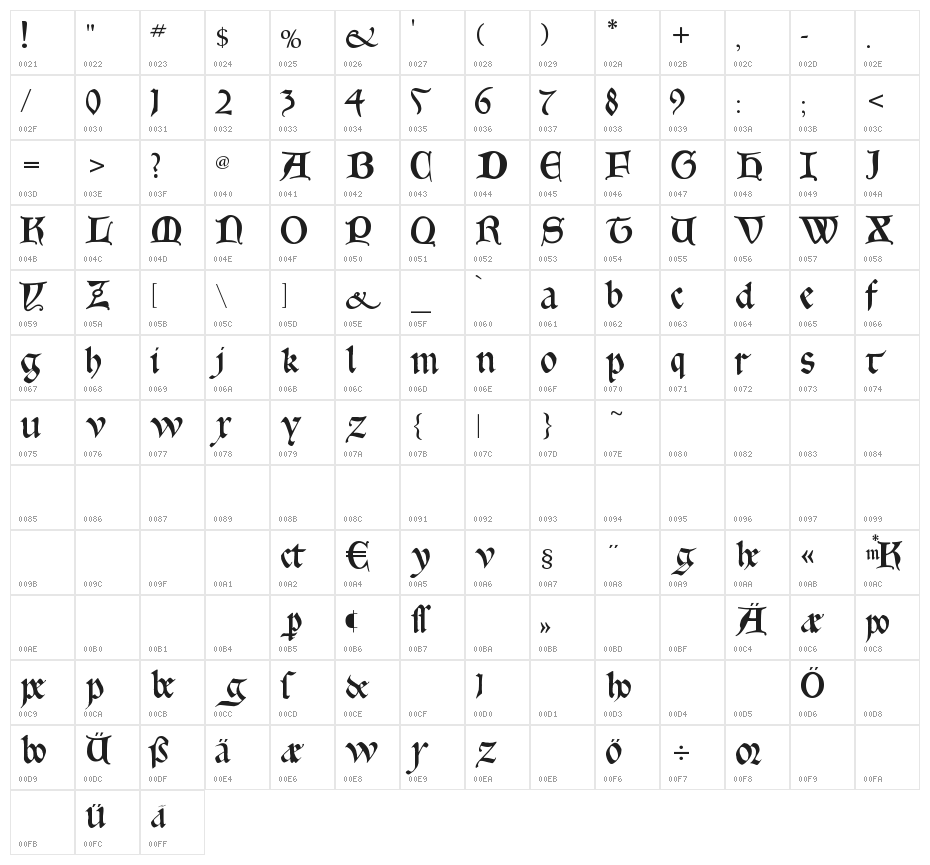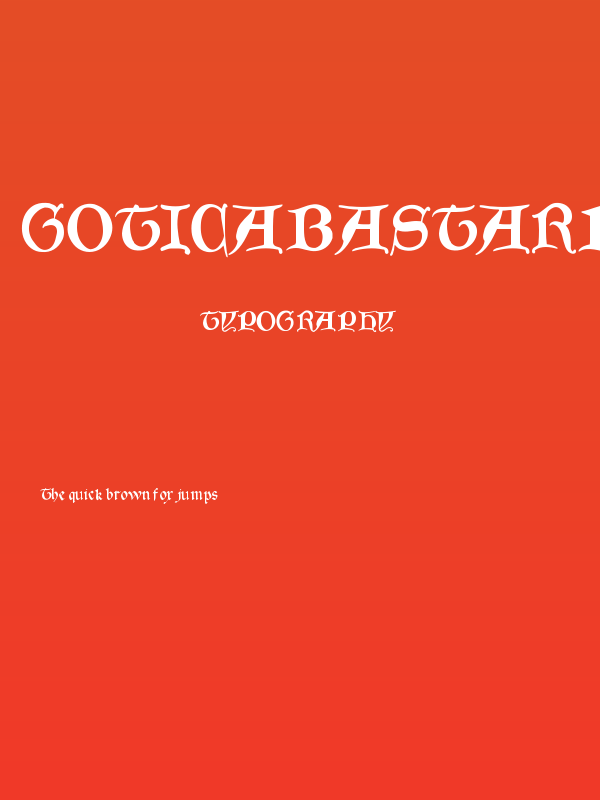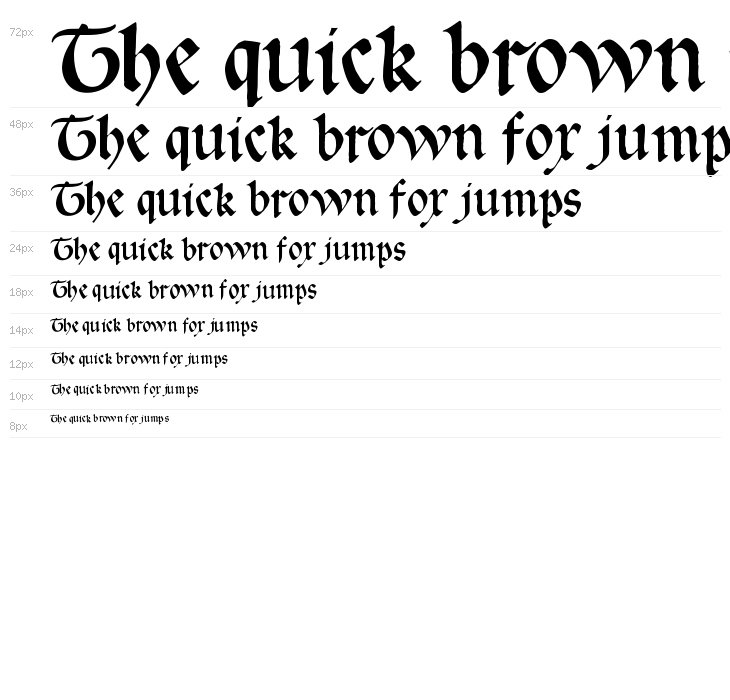
GoticaBastard Font
GoticaBastard Description
This font exhibits a classic blackletter style with a distinct Gothic influence. The characters are intricately designed with sharp angles and dramatic curves, giving them a bold and authoritative appearance. The uppercase letters are particularly ornate, featuring pointed serifs and elaborate strokes that enhance their medieval aesthetic. The lowercase letters maintain a consistent style, with a slightly more subdued design that complements the uppercase set. Numerals and special characters are crafted with the same attention to detail, ensuring a cohesive look across all glyphs. The overall impression is one of elegance and tradition, making it suitable for projects that require a historical or formal touch.
Overall StyleClassic
Use CaseHeadlines, Logos, Certificates
Proposed ProjectsIdeal for historical documents, invitations, certificates, branding for luxury products, or any project seeking a traditional or formal appearance.